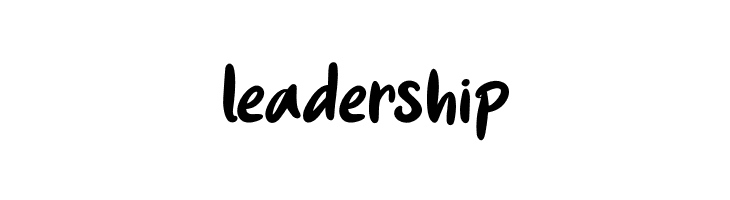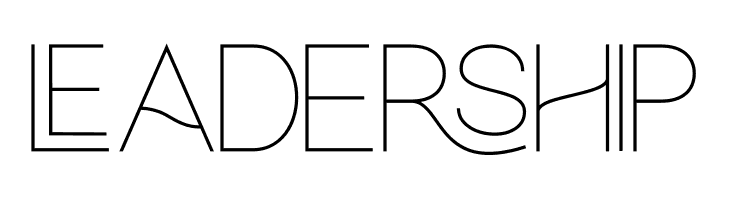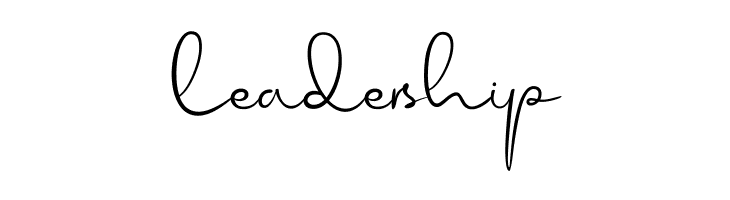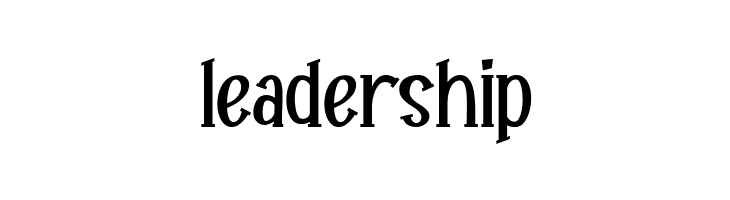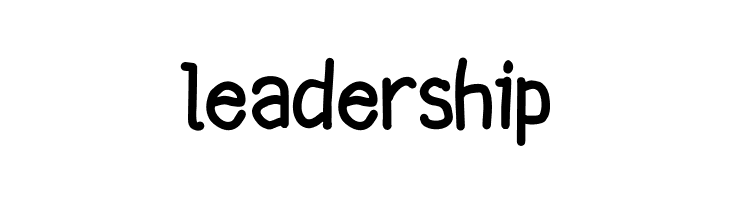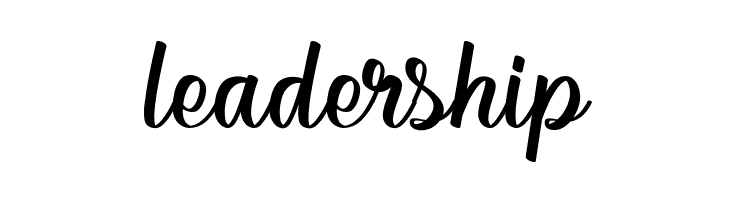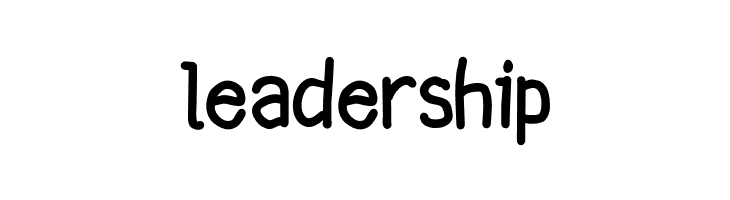
A lively, handwritten font with fluid strokes and playful curves.
A sleek, modern font with clean, geometric lines and a minimalist style.
A playful, bold, and hand-drawn font with rounded strokes and a dynamic slant.
A modern, flowing script font with elegant, slanted characters.
A playful and whimsical font with dynamic, slanted letterforms.
A bold, playful handwritten font with thick strokes and dynamic shapes.
A playful, handwritten font with rounded, slightly irregular letterforms.
A playful, handwritten font with rounded edges and a casual style.
A playful and whimsical font with bold, slightly condensed uppercase letters and rounded lowercase letters.
A playful and whimsical font with a blend of curves and angles.